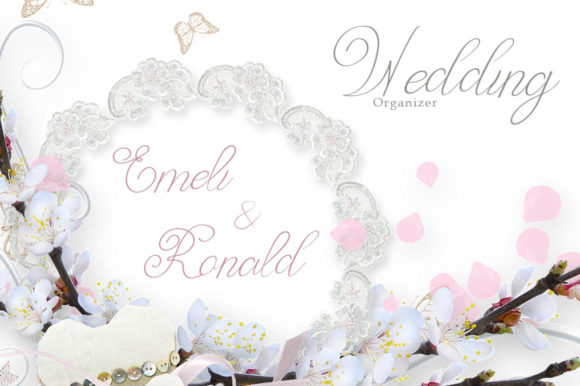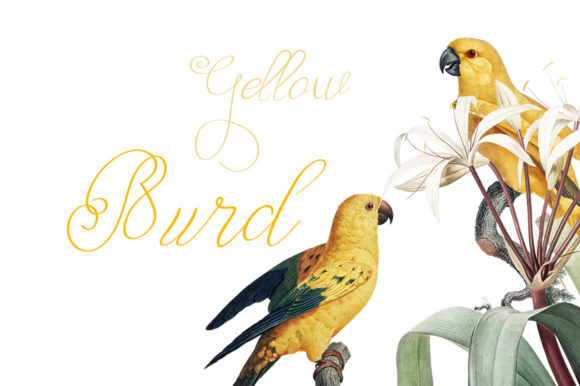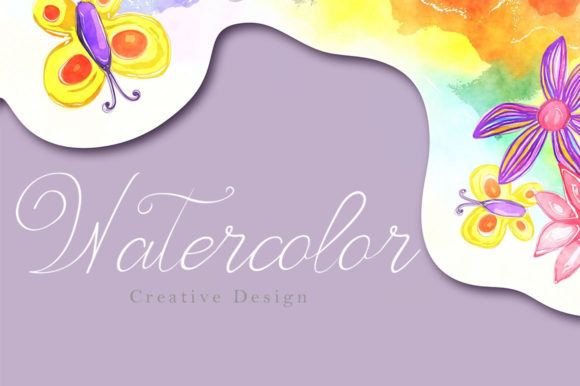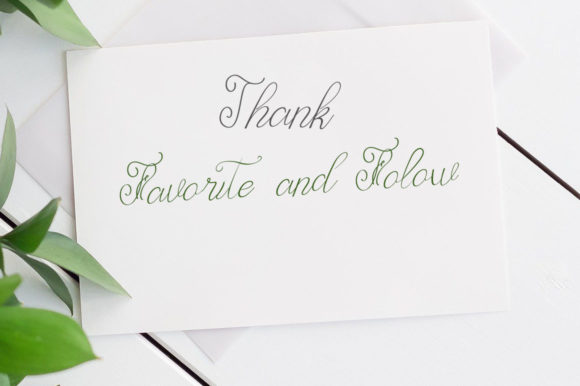
About Rostalia Font
Rostalia is a dainty script font, defined by a lovely flow. It looks ravishing on a variety of designs requiring a personalized style, such as wedding invitations, thank you cards, weddings, greeting cards, logos and so on.